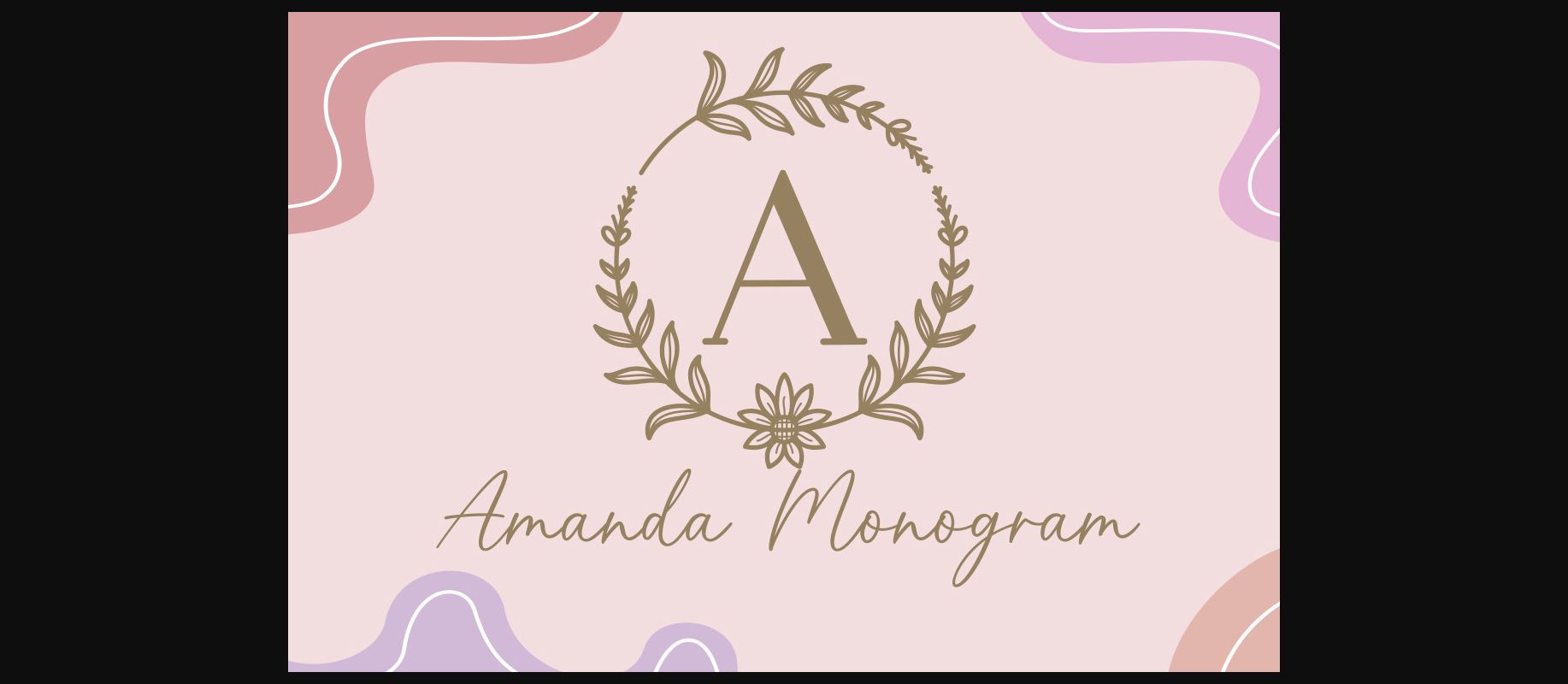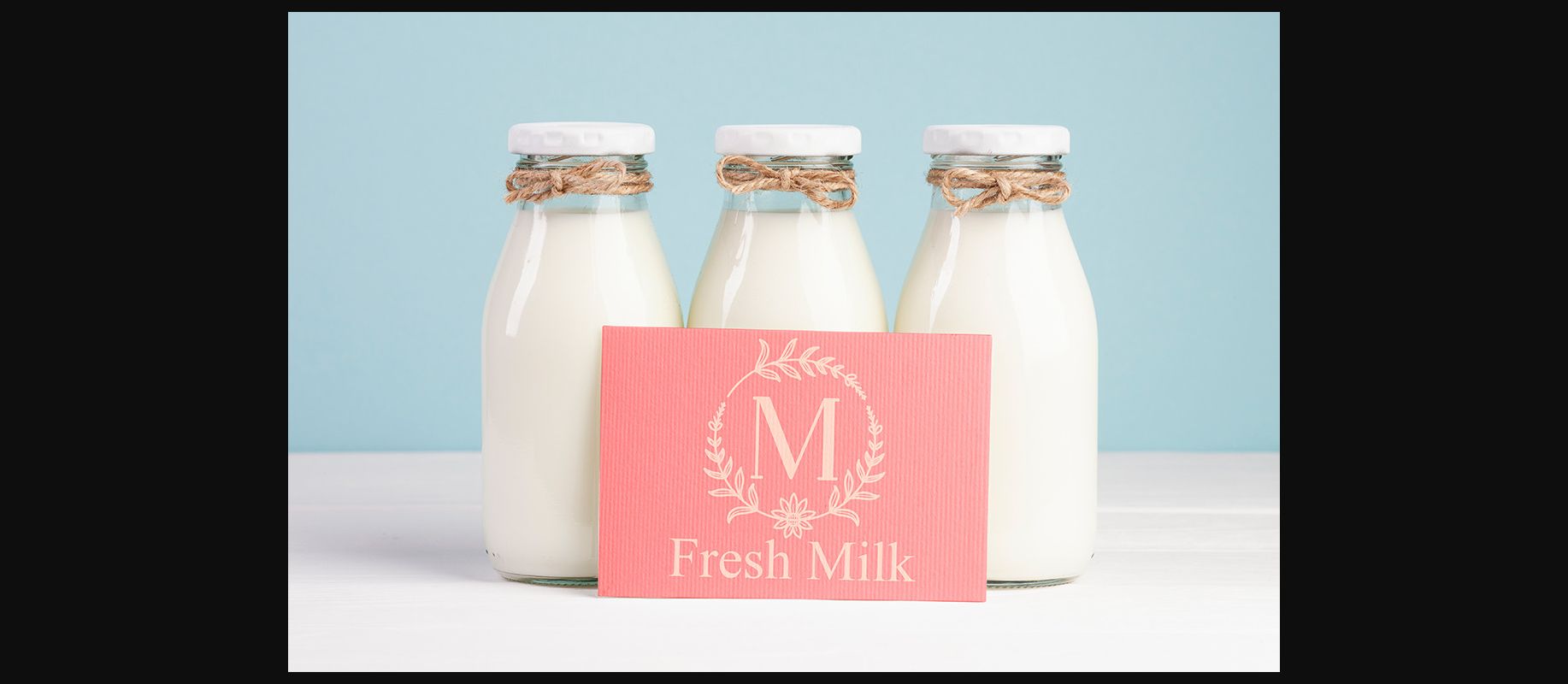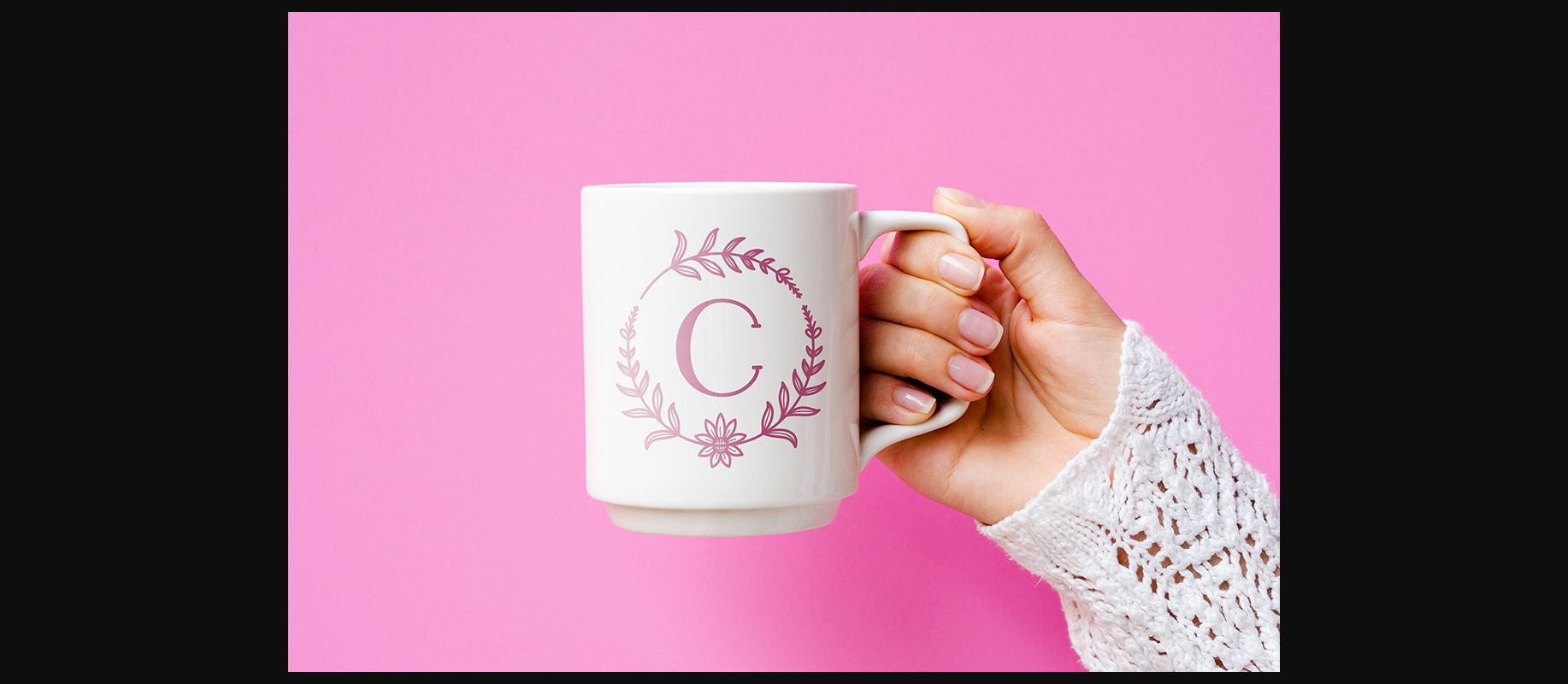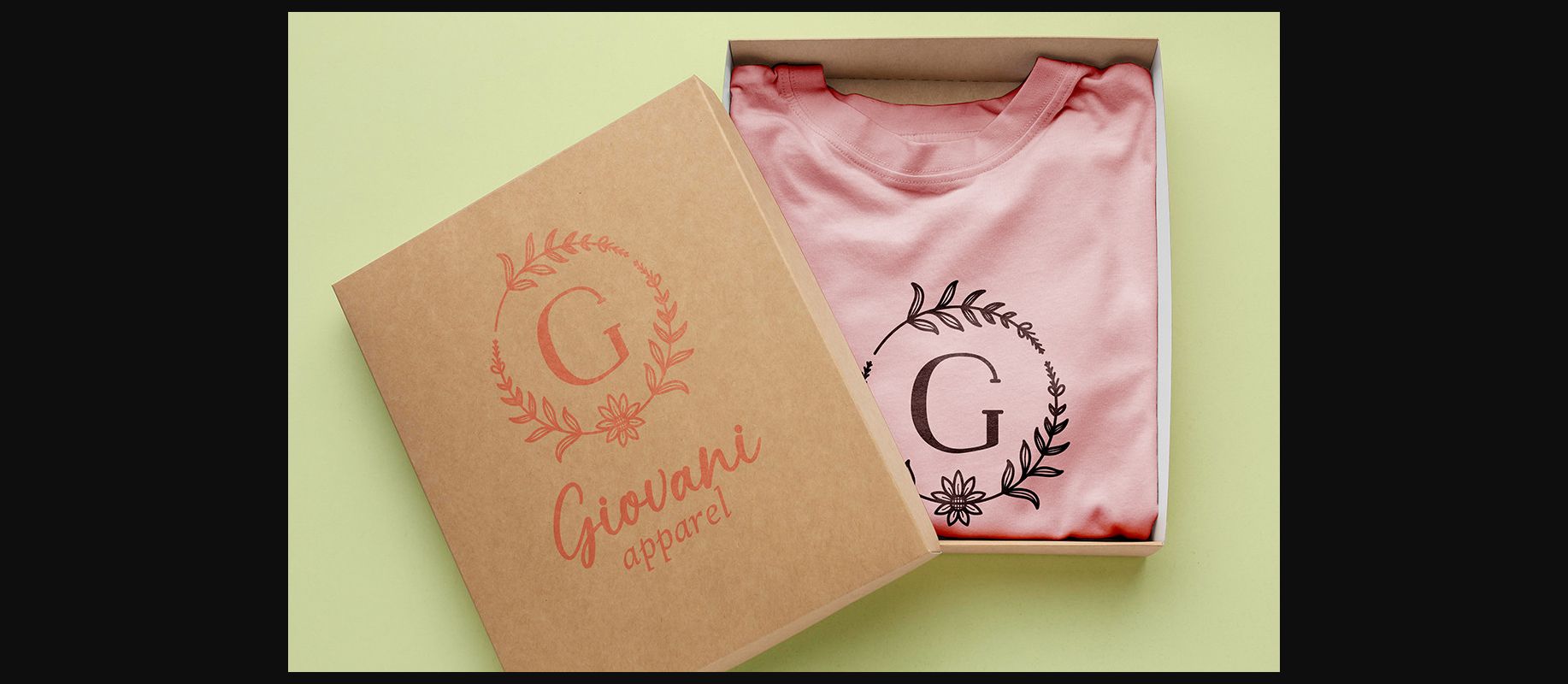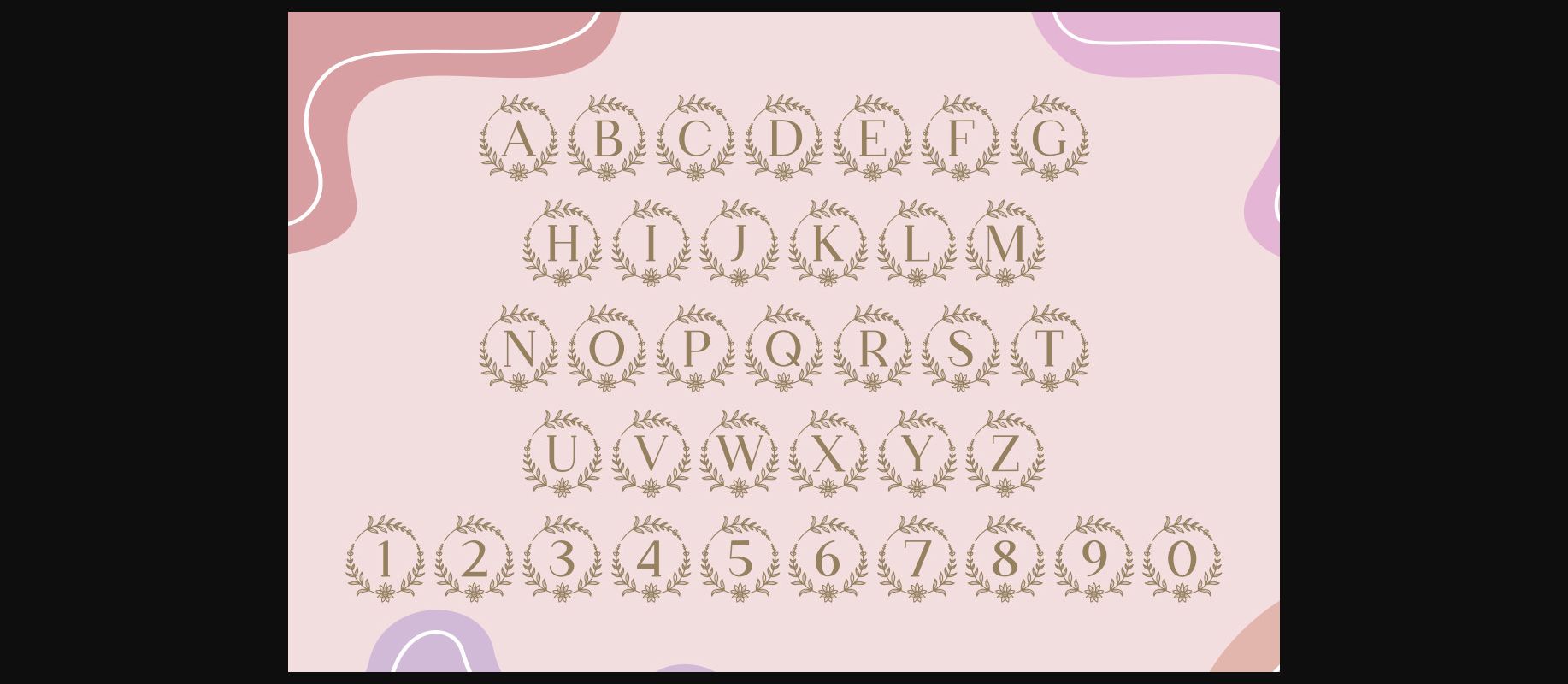
About Amanda Font
Amanda is a stunning, delicate and authentic decorative font.
Use it for a wide range of design occasions such as logos, apparel, photography, watermarks, quotes, blog headers, posters, weddings, invitations, stationery, branding, and much more.